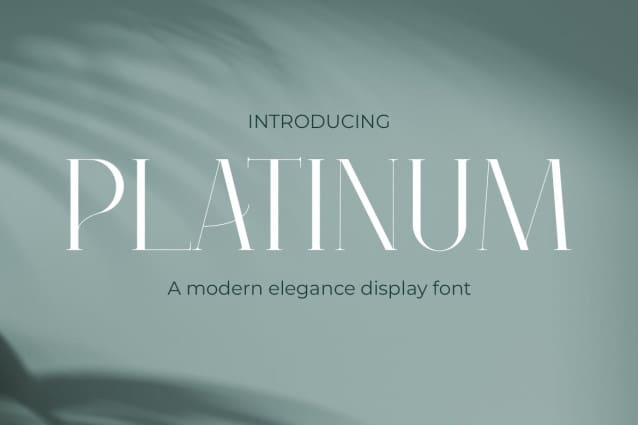
Platinum Font
Platinum Font, an embodiment of sophistication and femininity in the world of serif fonts. Designed with elegance in mind, this font complements fashion, logos, quotes, invitations, posters, greeting cards, packaging, branding, wedding quotes, cover albums, business cards, postcards, and beyond. Its graceful curves and stylish demeanor bring a touch of refined allure to any project.
Crafted to embody a sense of modern femininity, Platinum’s stylistic approach appeals to contemporary design trends, making it a perfect choice for those seeking a font that exudes elegance and charm.